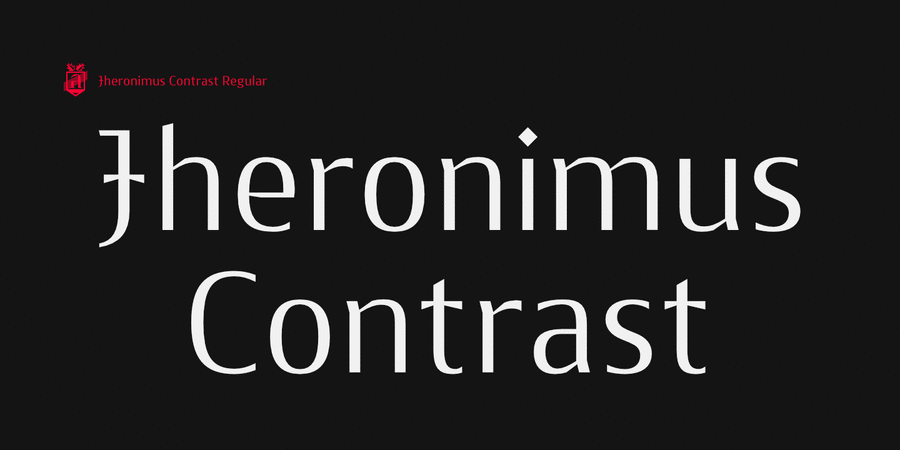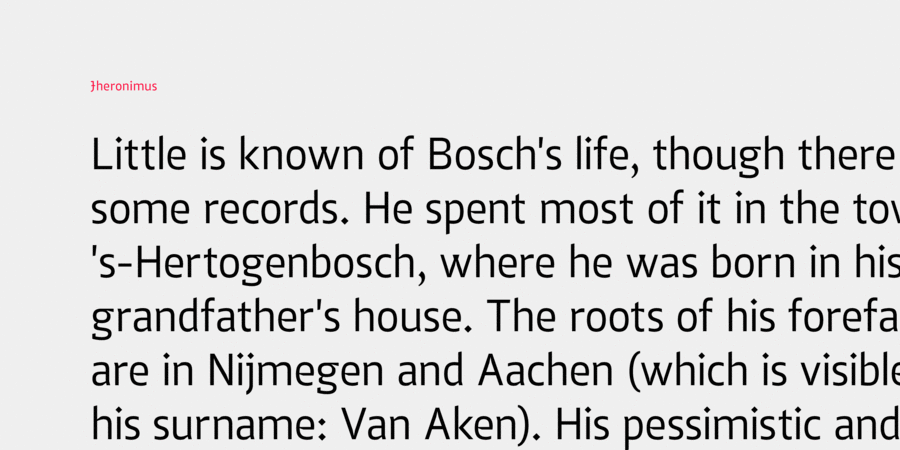
Jheronimus (15 fonts)
About Jheronimus is a neo-humanistic Sans with Variable weight and contrast axis. The typeface has an open aperture, straight terminals and moderate x-height. Jheronimus is a font with uniform ordered rhythm, well readable on the screen in small size. Consistent letter proportions, pill shaped rounded elements and pronounced connection strokes. Punctuation marks are well decorated. Jheronimus will satisfy any demanding typographer. There are oldstyle figures in the best traditions of humanism.
The bright recognizable character is combined with a clear form. It creates a sharp crystal impression. Jheronimus is suitable for the ambitious, temperamental design. It is stylistically similar to the paintings of the Dutch artist Hieronymus Bosch. From this comes the font's name. The typeface was designed by Aleksey Popovtsev in 2019.